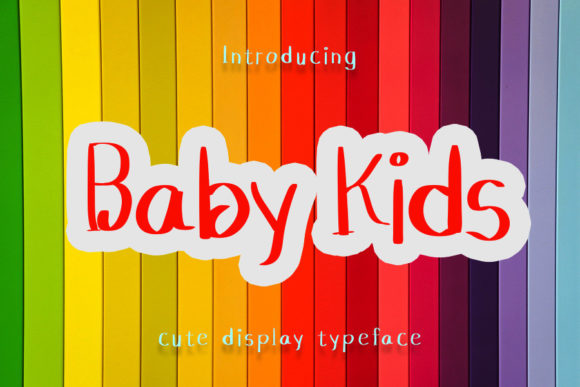
Embark on a typographic adventure with Baby Kids Font, the captivating serif font that exudes warmth and charm. Its graceful curves and inviting demeanor make it the perfect companion for fashion branding and editorial designs. Immerse yourself in the world of Baby Kids Font, where creativity blossoms and your designs take flight.
With its relaxed and sweet style, Baby Kids Font is the epitome of approachability. Its smooth lines evoke a sense of comfort and familiarity, making it ideal for projects that aim to connect with audiences on an emotional level. Whether you're crafting a fashion catalog or designing an enchanting children's book, Baby Kids Font will effortlessly elevate your creations.
But the allure of Baby Kids Font extends far beyond its aesthetic appeal. Its versatility knows no bounds, seamlessly adapting to a wide range of design endeavors. Let your imagination soar as you explore its potential in logos, packaging, web design, and more. The possibilities are endless with Baby Kids Font.
Indulge in the beauty and functionality of Baby Kids Font, crafted by the renowned Inermedia STUDIO. Experience the joy of creating designs that captivate, inspire, and leave an unforgettable mark.